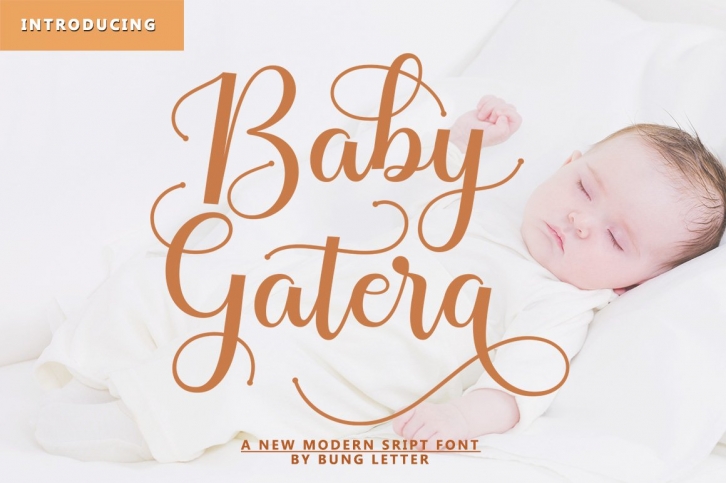
Baby Gatera is a beautiful font that was designed by bungletter. It's a great choice for designers and creatives who need such a font. It was released on December 9, 2020 and the file size is 1.95 MB. Baby Gatera may give a more youthful, expressive and casual look to your project. It is a very beautiful, refined, elegant, and high-quality font.